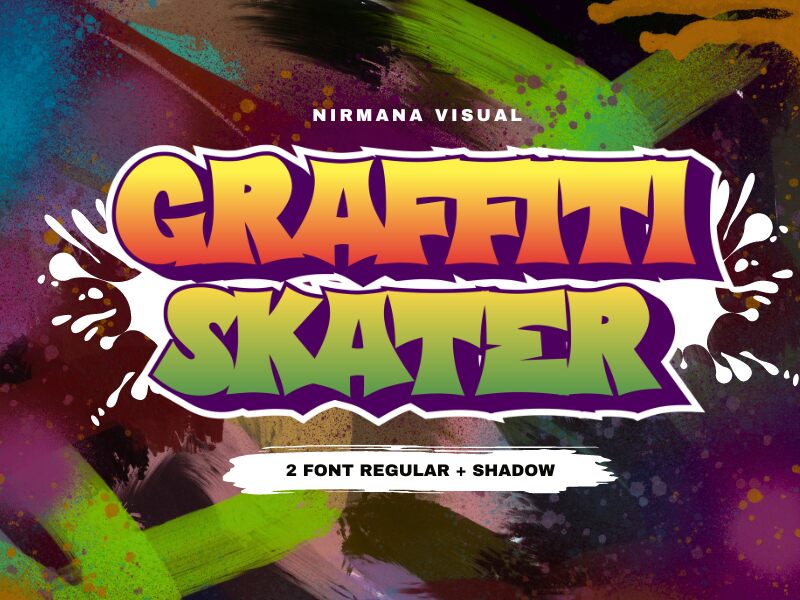
Graffiti Skater font by Nirmana Visual is a graffiti bold, expanded typeface with urban inspiration. Its informal and dynamic style is translated through edgy, angular characters that stand out and communicate an extra playful and vibrant touch to any design. Each glyph stands out with its strong visual presence making this free font ideal for any display project.